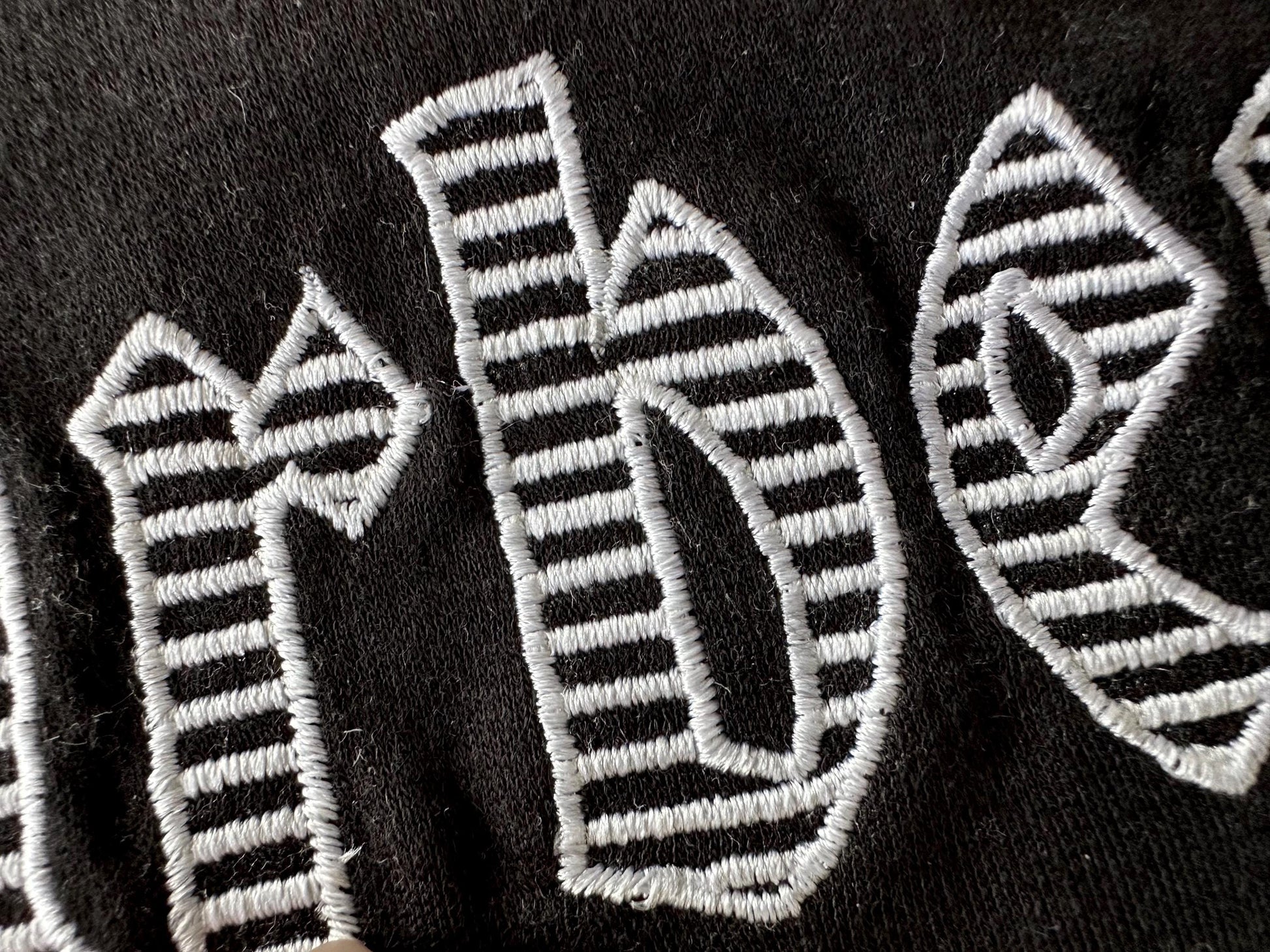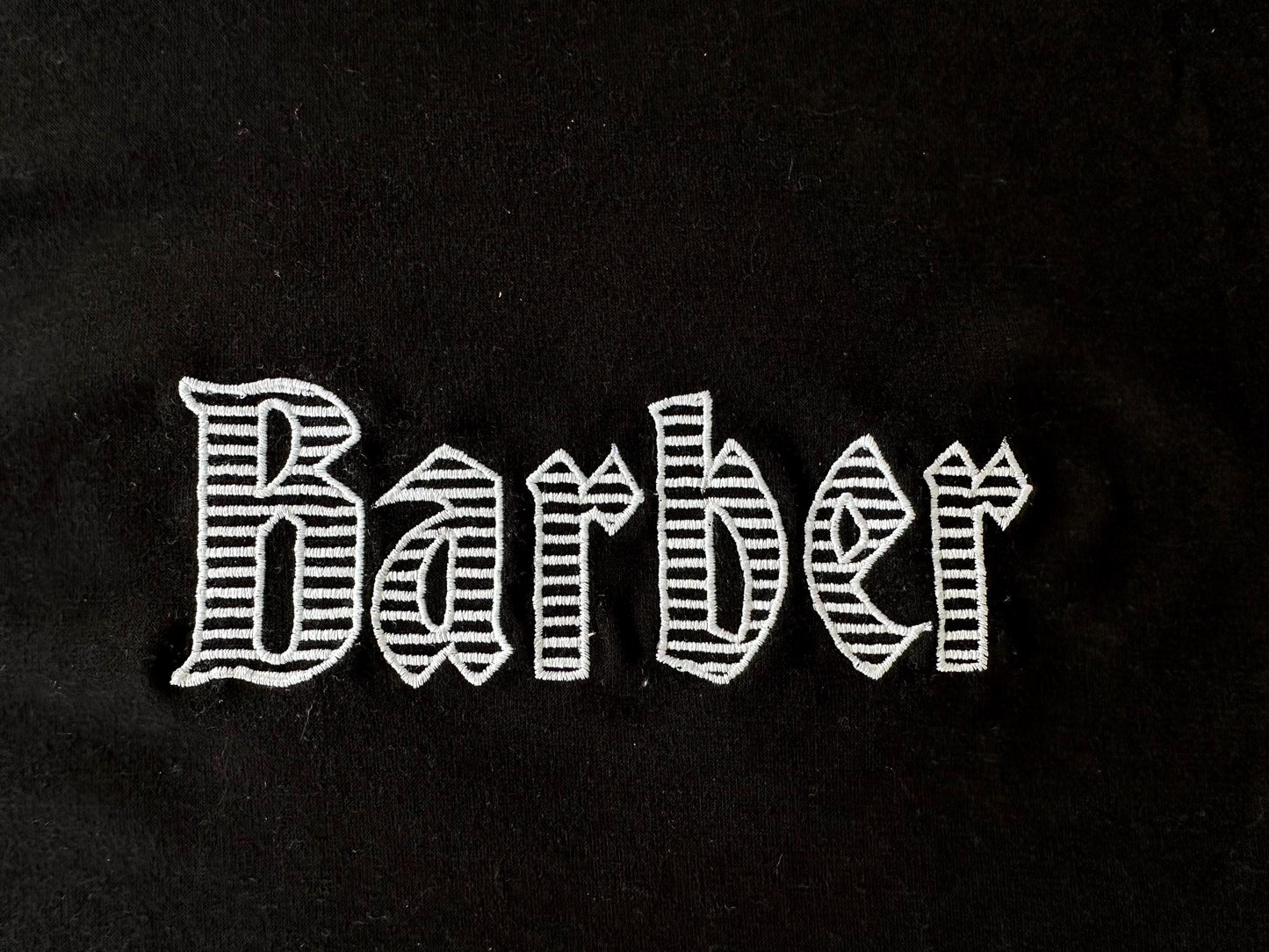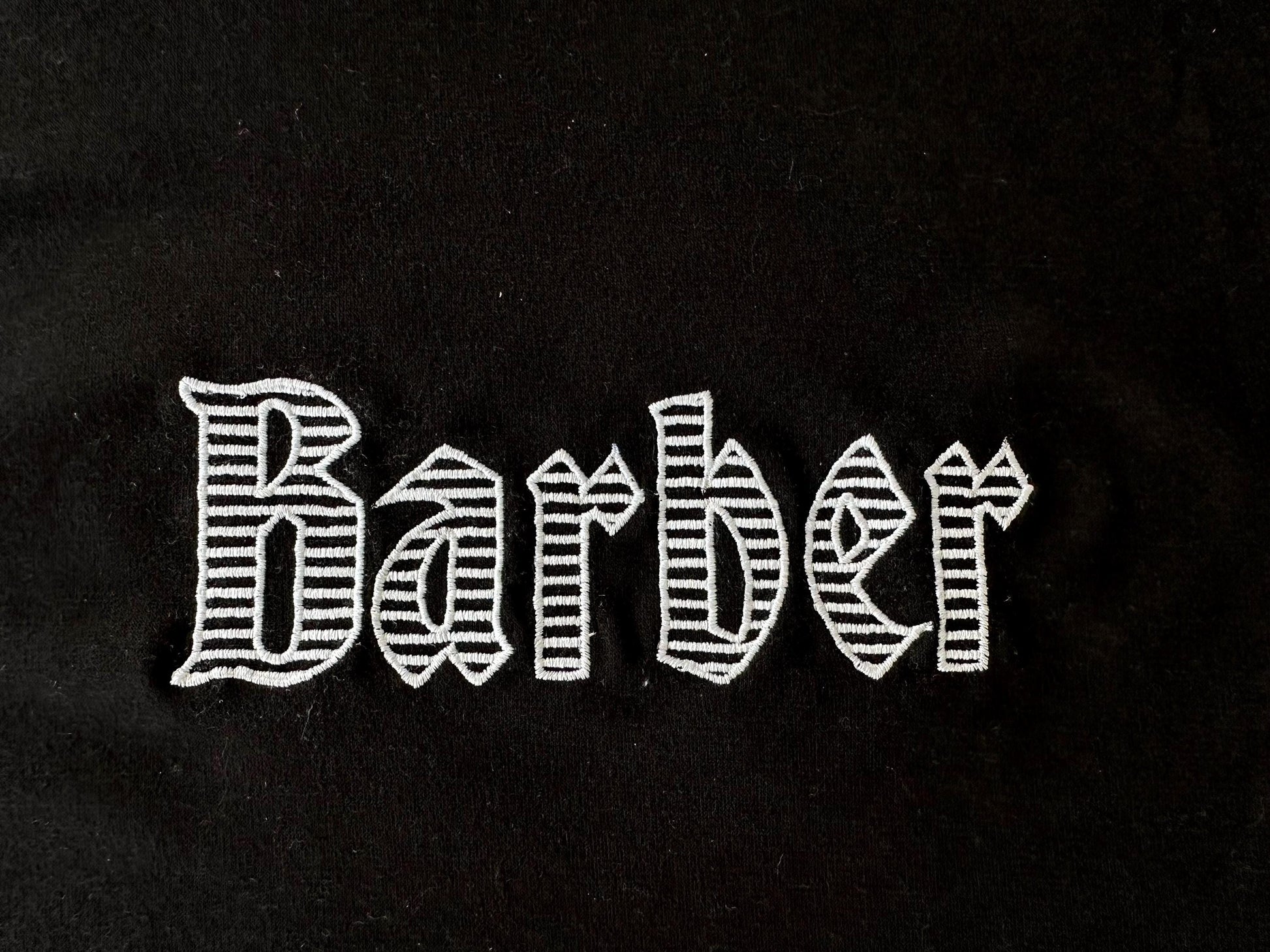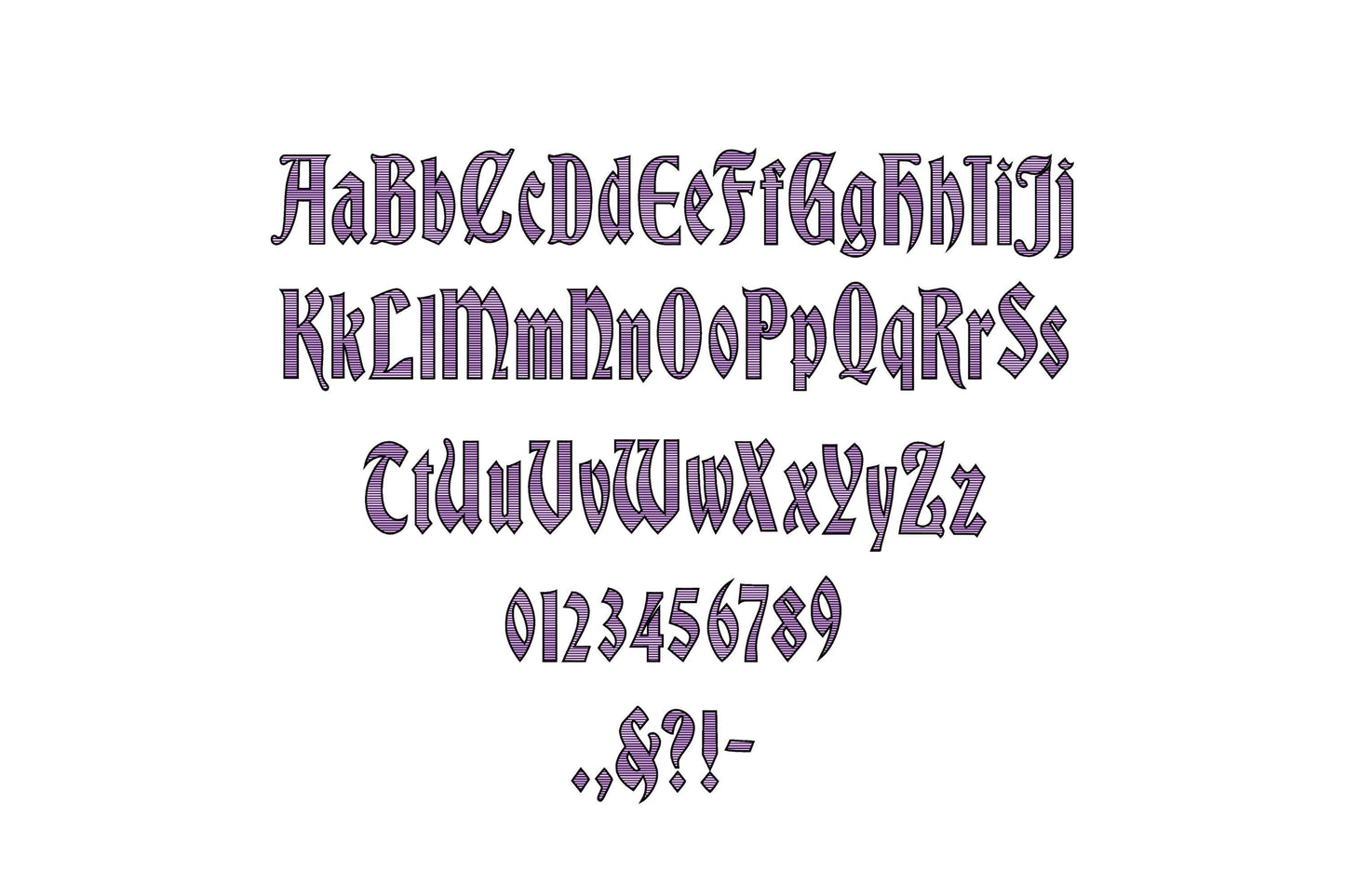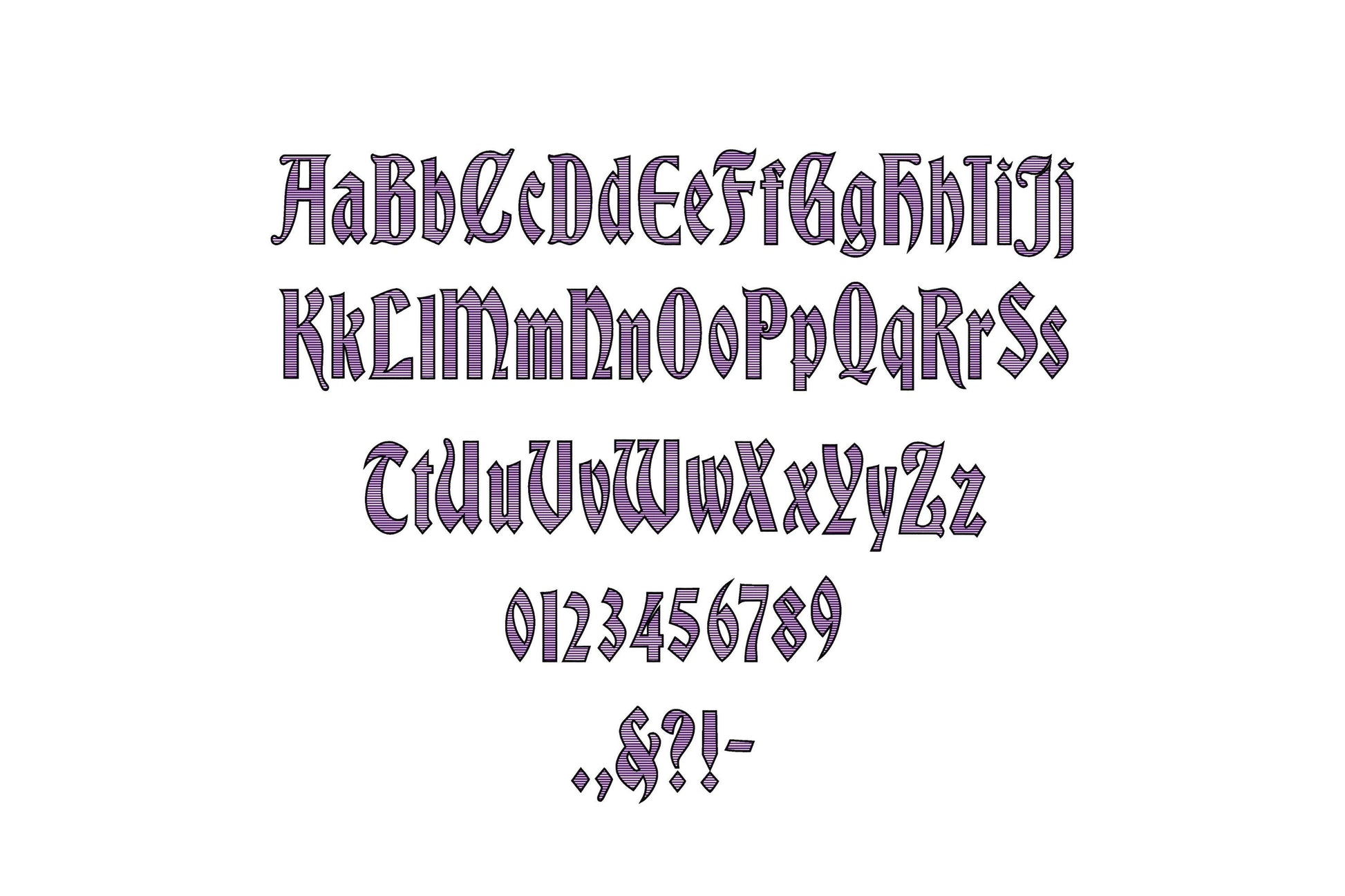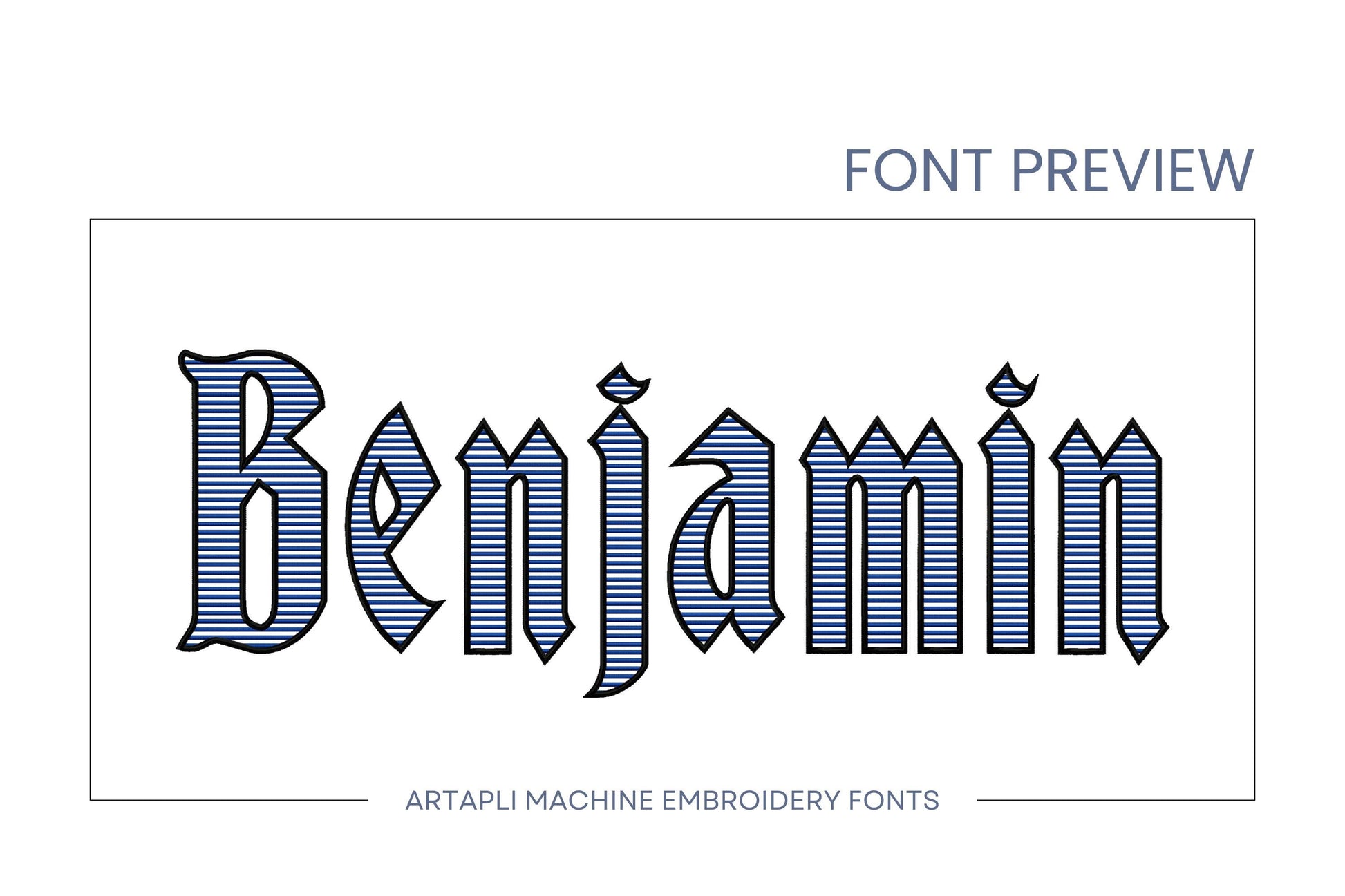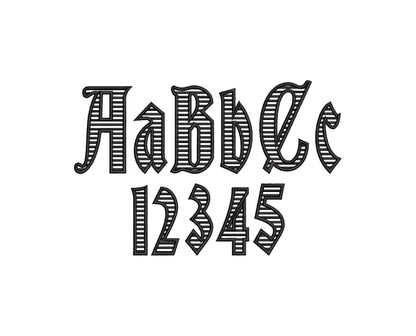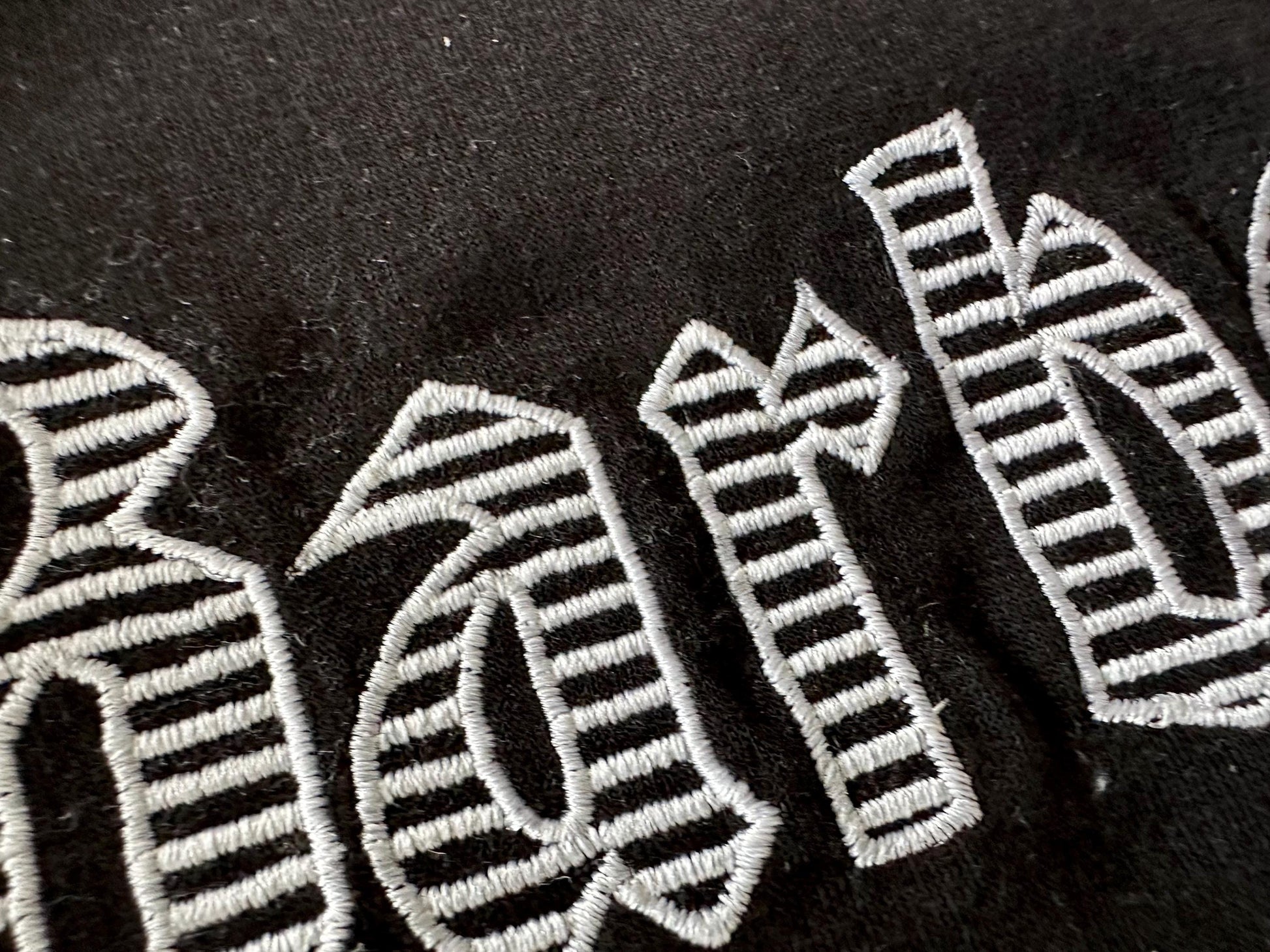
Striped Old Fashioned Font Barber
Entire alphabet: uppercase and lowercase letters Aa-Zz, numbers 0-9, and punctuation.
This is a transparent font and the background fabric looks through. Stunning effect!